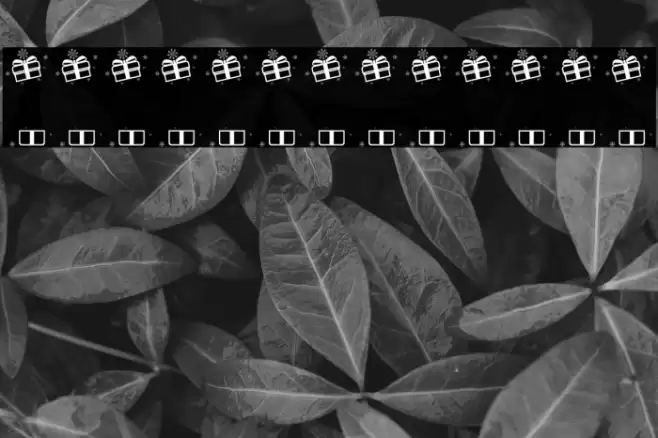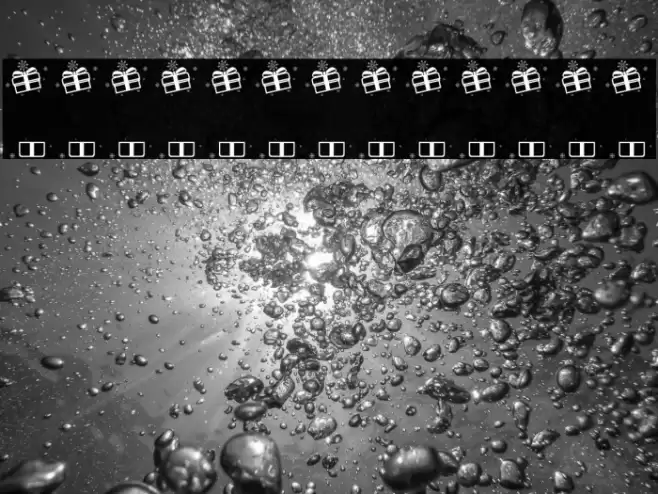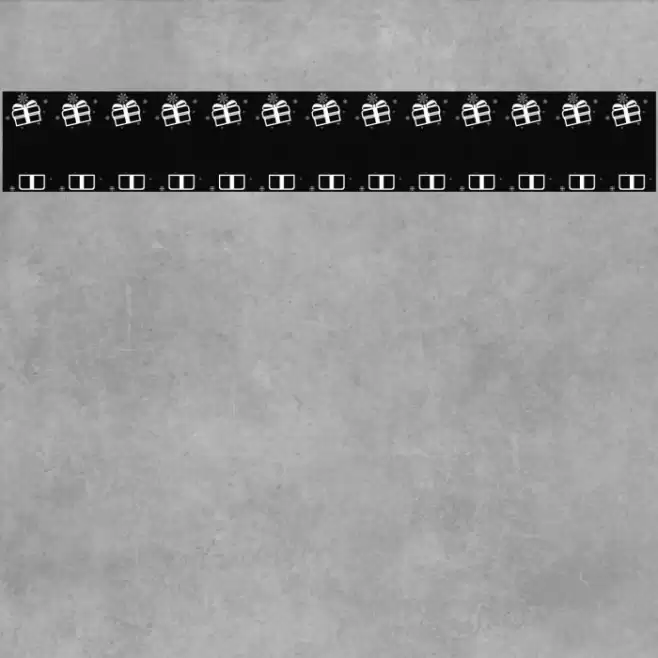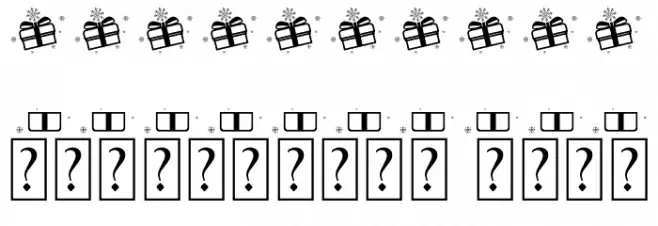
SnowBoom-Box Font
SnowBoom-Box Description
This is not a valid font. The image contains repeated patterns of gift boxes and question marks, which are decorative elements rather than a functional typeface. These symbols are not arranged in a way that represents a complete alphabet or numerical set, and they lack the necessary components to be used as a traditional font.
The image does not depict a valid font from Christmas (Xmas) fonts.
- Font: SnowBoom-Box
- Proposed Projects: N/A
- Bold: Unknown
- Italic: Unknown
- Width:
- Character Spacing: Unknown
- Contrast:
- Use Case: N/A